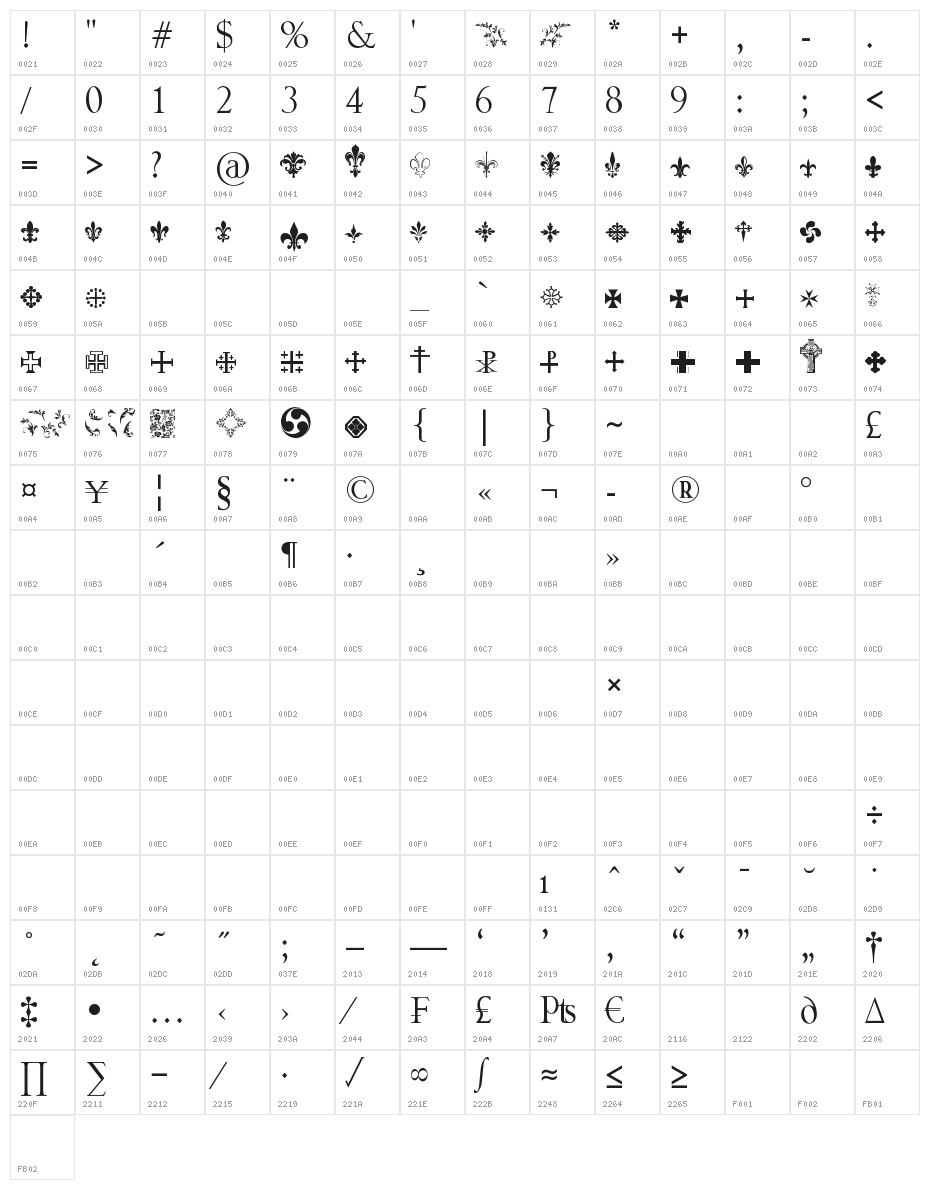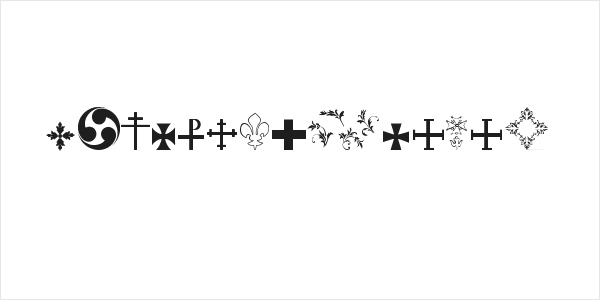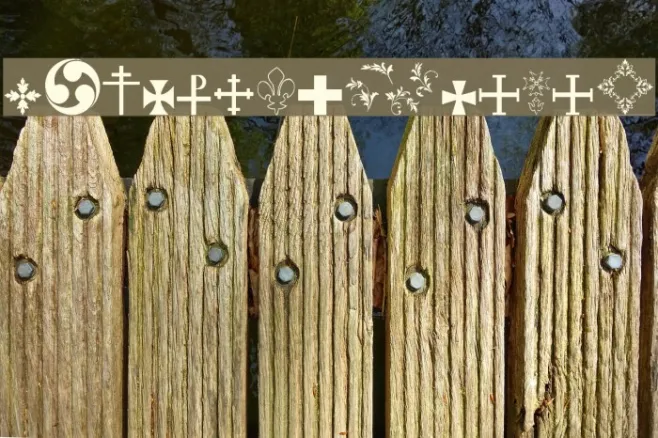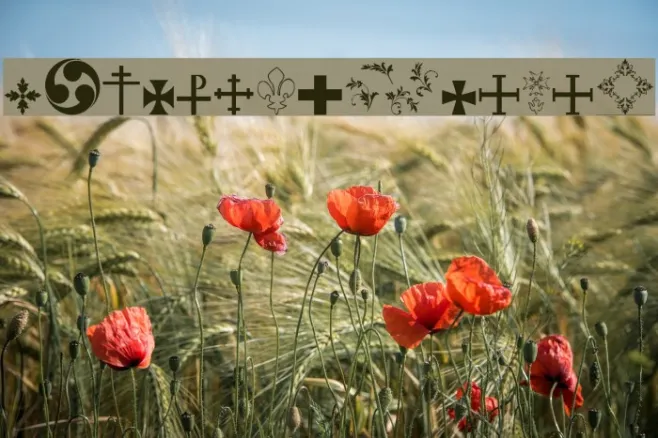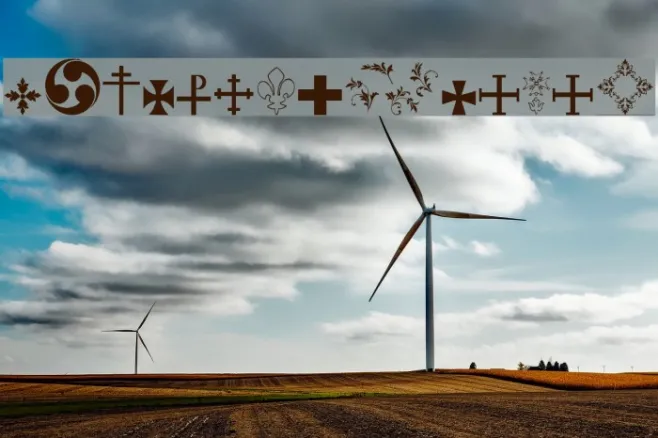
SymbolCrucifix Font
SymbolCrucifix Description
This collection features a variety of intricate symbols and decorative elements, including fleur-de-lis, crosses, and other ornamental designs. The symbols are bold and detailed, showcasing a mix of traditional and modern influences. The numbers are styled in a classic serif font, providing a strong contrast to the ornate symbols. The special characters include a range of punctuation marks and decorative flourishes, adding versatility to the set. This collection is ideal for projects requiring a touch of elegance and historical reference.
| Use Case | Logos, Decorative elements, Religious texts |
| Proposed Projects | Ideal for religious publications, historical documents, decorative invitations, and branding that requires a classic or traditional touch. |